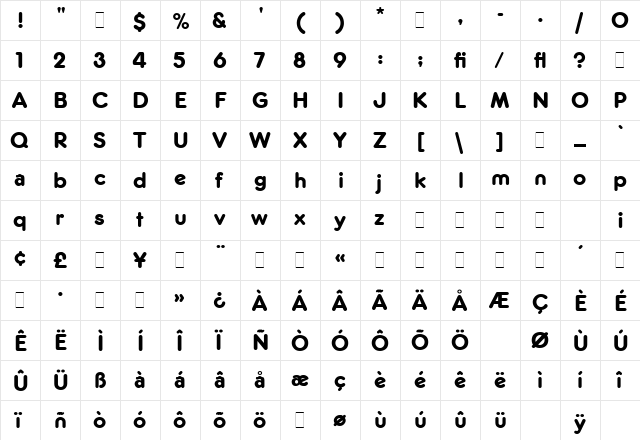
Frankfurter Medium LET Plain
Design Context for Frankfurter Medium LET Typeface
Frankfurter Medium LET offers clean, dependable letterforms without strong stylistic allegiance, making it a practical choice for designers who need flexibility.